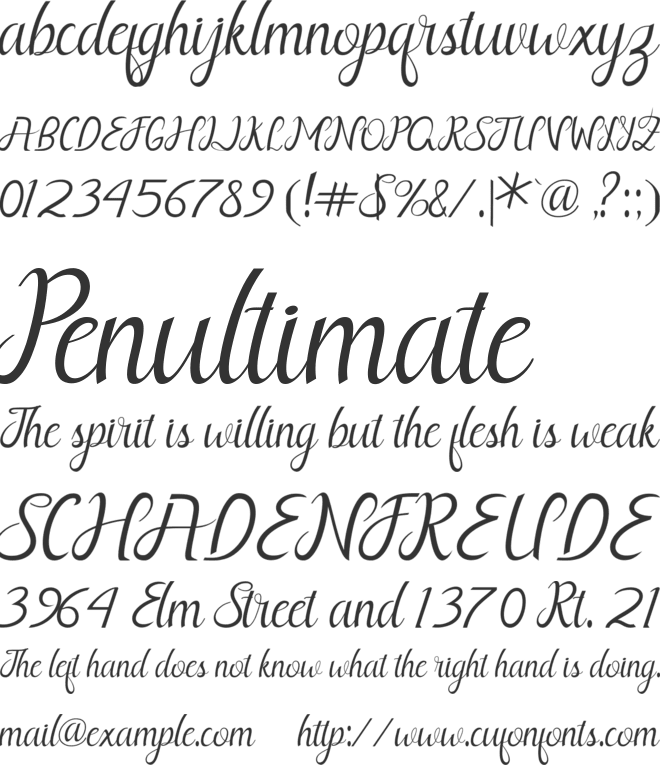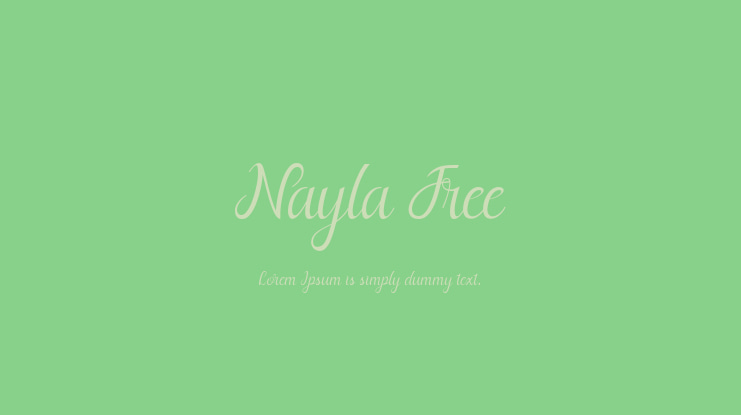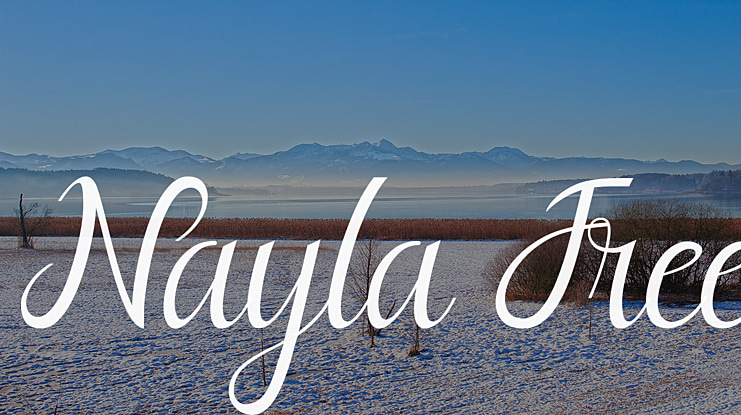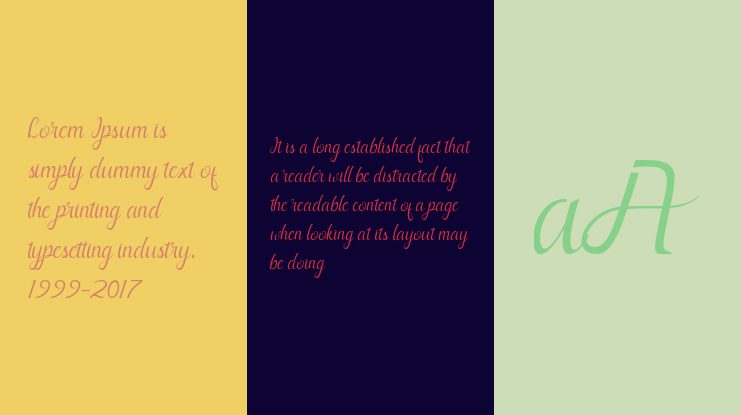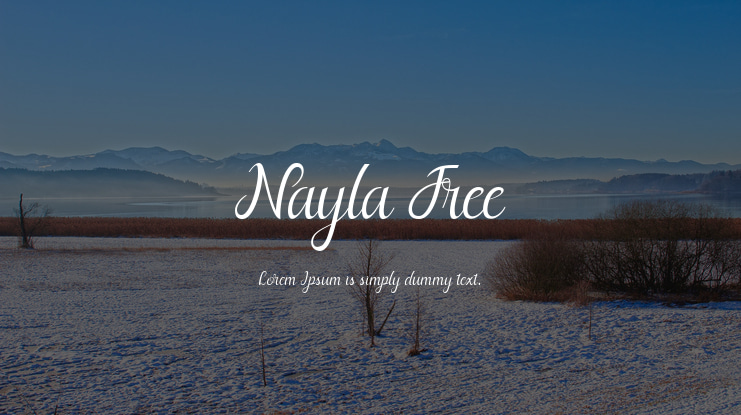
Nayla Free Font
Nayla is a script font that has the characteristic handwriting, it is very suitable to make certain label and event business and you could be using for a unique piece. Visit here to get full version